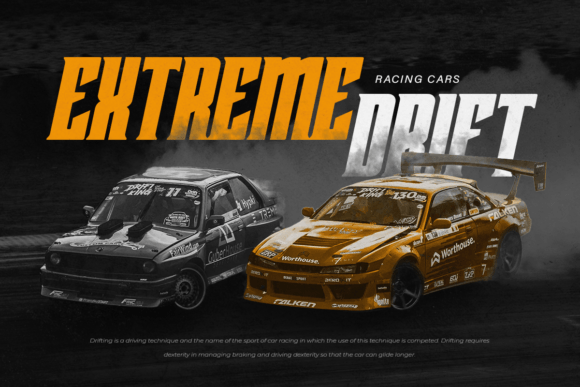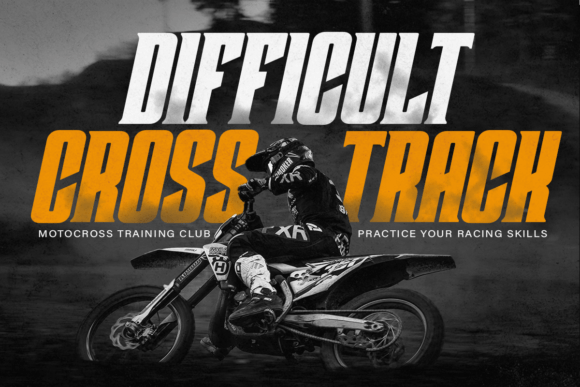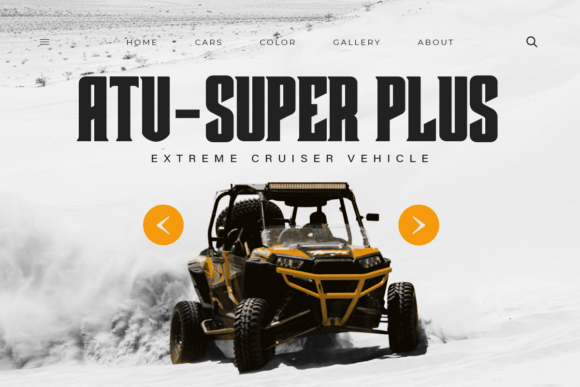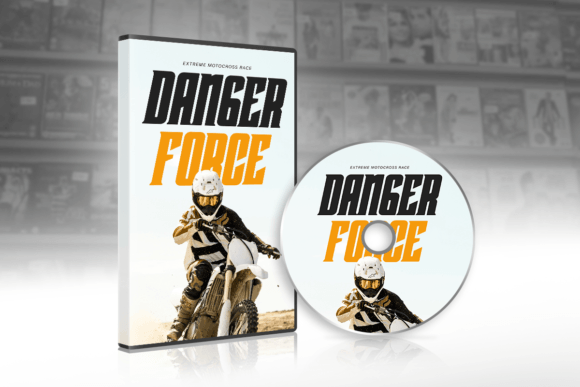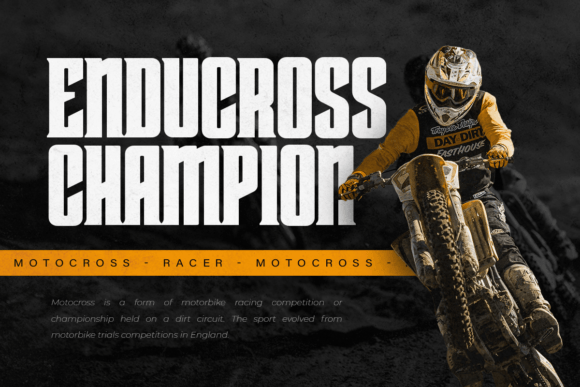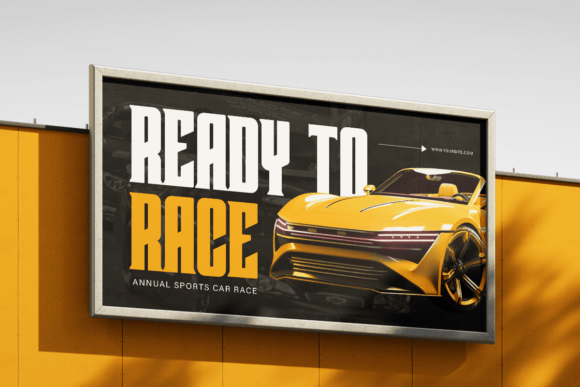
Introduction to Crosride Font
Crosride is a bold & condensed display font that is inspired by sports.
Ideal for fast car racing sports titles, running matches, cycling, automotive game logos and monograms or other modern dynamic text Runner compare favorably with legibility and size, creating the effect of power and speed.
Key Features of Crosride Font